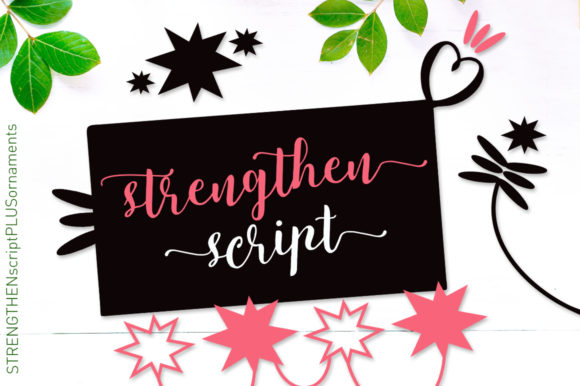
**Unleash the Enchantment of Strengthen Script: Your Key to Captivating Creations**
Prepare to be mesmerized by Strengthen Script, a font that dances with elegance and transforms your words into works of art. Crafted with love and care by the visionary minds at Area Type, this script font weaves a tapestry of enchanting features that will ignite your creativity and elevate your designs to new heights.
Step into a realm where letters flow with the grace of a ballerina, their baseline gently undulating like a whispering breeze. Each glyph and swash is meticulously crafted, showcasing the beauty of hand-lettering in all its splendor. With PUA encoding, you possess the power to effortlessly access these design treasures, unleashing a world of creative possibilities.
Strengthen Script's versatility knows no bounds. Whether you seek to weave tales of love on wedding invitations or craft captivating social media posts, this font will adorn your words with timeless allure. Its captivating curves and striking alternates dance before your eyes, beckoning you to create designs that leave an indelible mark.
Immerse yourself in the world of Strengthen Script and discover the magic that awaits. Its every stroke whispers of elegance, its every letter a testament to the beauty of the written word. With this font in your creative arsenal, you'll possess the power to craft designs that ignite imaginations and leave a lasting impression.